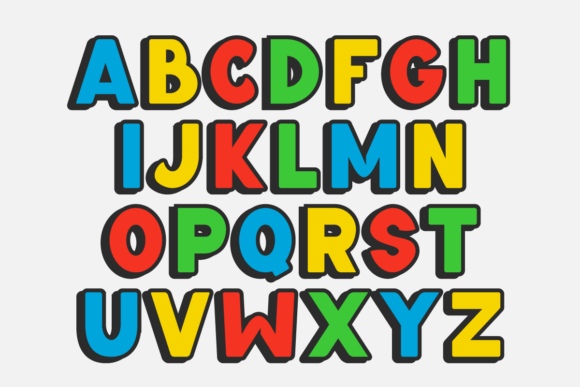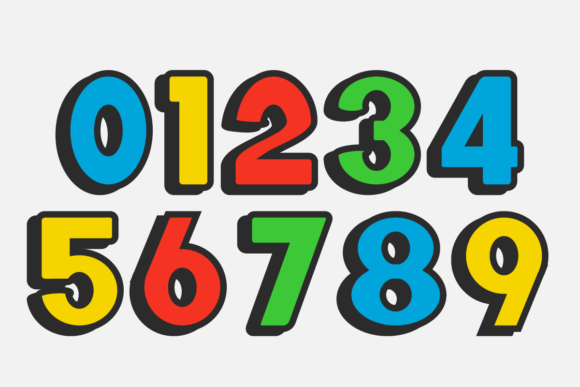
Meet the Grinch Font: A Cute, Bold, and Quirky Addition to Your Design Arsenal
Are you tired of using the same old fonts in your craft printing projects? Look no further! Introducing the Grinch Font, a fun, bold, and quirky color font that’s perfect for adding a touch of personality to your designs. Whether you’re a designer, crafter, or DIY enthusiast, this font is sure to become a favorite in your collection.
What Makes the Grinch Font So Special?
The Grinch Font is a one-of-a-kind font that’s designed to bring a smile to your face. Its bold and playful design makes it perfect for a wide range of craft printing needs, from stickers and mugs to t-shirts and children’s books. The font’s quirky and fun personality is sure to appeal to anyone looking to add a bit of whimsy to their designs.
Perfect for Craft Printing Needs
The Grinch Font is incredibly versatile and can be used for a variety of craft printing needs, including:
- Stickers: Add a fun and playful touch to your stickers with the Grinch Font.
- Mugs: Create eye-catching mugs with a personalized message or quote.
- DIY Projects: Use the Grinch Font to add a personal touch to your DIY projects, such as customized keychains or wall art.
- T-Shirts: Design fun and quirky t-shirts with the Grinch Font.
- Labels: Create customized labels for your products or gifts.
- Children’s Books: Bring your children’s books to life with the Grinch Font’s playful design.
- Teaching Materials: Use the Grinch Font to create engaging and interactive teaching materials.
- Coloring Pages: Add a fun and playful touch to your coloring pages.
- Titles and Book Covers: Use the Grinch Font to create eye-catching titles and book covers.
- Cricut: The Grinch Font is perfect for Cricut projects, such as customized signs, cards, and decorations.
- SVG Quotes: Use the Grinch Font to create stunning SVG quotes for your social media or website.
- Sweaters: Design fun and quirky sweaters with the Grinch Font.
- Keychains: Create customized keychains with the Grinch Font.
- Initials: Use the Grinch Font to create personalized initials for your projects.
- Picture Books: Bring your picture books to life with the Grinch Font’s playful design.
- Tumblers: Create eye-catching tumblers with the Grinch Font.
- Wall Art: Use the Grinch Font to create stunning wall art for your home or office.
- Sublimation: The Grinch Font is perfect for sublimation projects, such as customized mugs, t-shirts, and phone cases.
- Decals: Create customized decals with the Grinch Font.
- Apparel: Design fun and quirky apparel with the Grinch Font.
Why Choose the Grinch Font?
There are many reasons why you should choose the Grinch Font for your craft printing needs. Here are just a few:
- Unique Design: The Grinch Font has a unique and playful design that’s sure to stand out.
- Versatility: The font is incredibly versatile and can be used for a wide range of craft printing needs.
- Easy to Read: Despite its playful design, the Grinch Font is easy to read and understand.
- Fun and Quirky: The font’s fun and quirky personality is sure to appeal to anyone looking to add a bit of whimsy to their designs.
Tips for Using the Grinch Font
Here are a few tips for using the Grinch Font in your craft printing projects:
- Experiment with Colors: The Grinch Font looks great in a variety of colors, so don’t be afraid to experiment.
- Pair with Other Fonts: The Grinch Font pairs well with other fonts, so try combining it with a serif or script font.
- Use for Headlines and Titles: The Grinch Font is perfect for headlines and titles, but it can also be used for body text.
- Get Creative: Don’t be afraid to get creative and try new things with the Grinch Font.
The Grinch Font is a fun, bold, and quirky color font that’s perfect for adding a touch of personality to your craft printing projects. With its unique design, versatility, and ease of use, it’s sure to become a favorite in your collection. Whether you’re a designer, crafter, or DIY enthusiast, the Grinch Font is a great addition to your design arsenal.